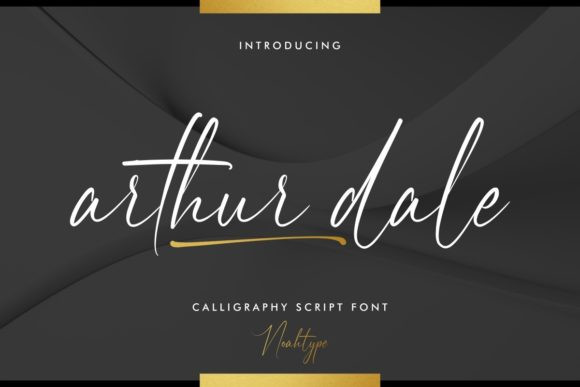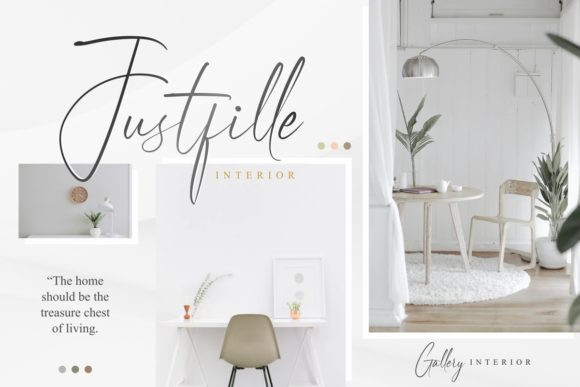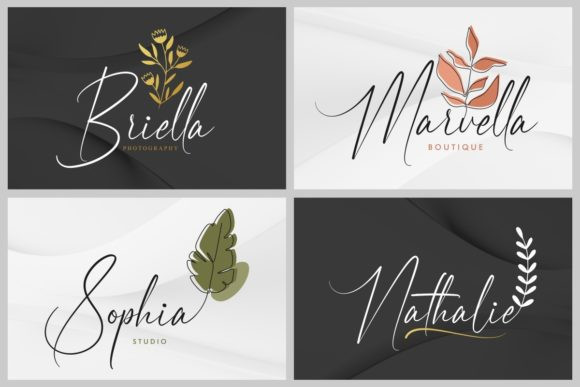
Arthur Dale Font
Arthur Dale FontArthur Dale is a delicate, elegant and flowing handwritten font. It has beautiful and well balanced characters and as a result, it matches a wide pool of designs. This font is PUA encoded which means you can access all of the amazing glyphs and ligatures with ease!